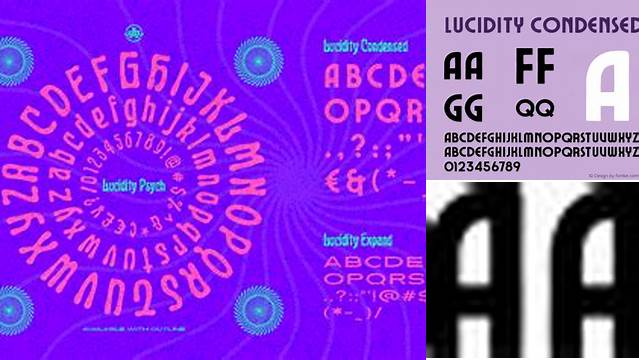
In the realm of typography, Ayr Lucidity Condensed Regular Font stands out as a versatile and elegant choice for designers and content creators alike. Its clean lines and condensed form make it ideal for various applications, from branding and marketing materials to website design and editorial layouts. If you're on the hunt for a font that combines readability with a touch of sophistication, you've likely stumbled upon the Ayr Lucidity Condensed Regular Font. This font has garnered attention for its sleek, modern design and its ability to convey a sense of clarity and professionalism. This article serves as your comprehensive guide to understanding, downloading, and utilizing this remarkable typeface.
When discussing typography, it's essential to grasp the significance of font choice in shaping the overall aesthetic and message of a design. Fonts are more than just characters; they are visual communicators that evoke emotions, set the tone, and influence readability. Ayr Lucidity Condensed Regular Font excels in striking a balance between style and functionality. Its condensed nature allows for efficient use of space, making it perfect for headlines, body text, and even smaller captions. The font's legibility is a key asset, ensuring that your content remains accessible and engaging to your audience. The design elements of this font family draw inspiration from modern sans-serif typefaces, incorporating subtle refinements that enhance its visual appeal. The clean strokes and balanced letterforms contribute to a sense of harmony, making it a versatile option for a wide array of design projects. Whether you're crafting a corporate report, designing a website, or creating a marketing campaign, Ayr Lucidity Condensed Regular Font can elevate your work with its sophisticated charm. One of the most attractive aspects of this font is its adaptability. It seamlessly integrates into various design contexts, complementing both minimalist and elaborate styles. Its neutrality allows it to pair well with other fonts, giving designers the freedom to experiment and create unique visual hierarchies. The font's condensed form also lends itself to contemporary layouts, where space optimization is crucial. In digital design, where screen real estate is limited, using a condensed font like Ayr Lucidity can make a significant difference in readability and user experience.
Why Choose Ayr Lucidity Condensed Regular Font?
Choosing the right font is crucial for any design project, and Ayr Lucidity Condensed Regular Font offers several compelling reasons to be your go-to typeface. From its aesthetic appeal to its practical applications, this font is a versatile asset for designers and content creators. When you are looking for a font that embodies modernity and clarity, Ayr Lucidity Condensed Regular Font delivers on both fronts. Its sleek lines and well-defined characters create a visual harmony that is pleasing to the eye, ensuring readability across various media. This font is not just about looks; it also brings a functional advantage to the table. The condensed nature of the font allows for more text to fit into a limited space, making it ideal for headlines, captions, and body text in designs where space efficiency is key. This is particularly beneficial in web design, where maximizing the use of screen real estate can significantly improve the user experience. One of the key reasons to opt for Ayr Lucidity Condensed Regular Font is its versatility. It seamlessly adapts to different design styles, whether you're aiming for a minimalist look or something more elaborate. This font pairs well with a variety of other typefaces, giving you the freedom to create unique and dynamic typography combinations. Its neutrality ensures that it doesn't overpower your design but rather complements and enhances it. For branding purposes, consistency is vital, and this font provides a professional and coherent look across all your materials. Whether it's for your website, business cards, or marketing collateral, Ayr Lucidity Condensed Regular Font can help establish a strong and recognizable brand identity. Its clean and sophisticated appearance conveys a sense of credibility and trustworthiness, which are essential for building a positive brand image. Furthermore, the legibility of Ayr Lucidity Condensed Regular Font is a significant advantage. The clear and distinct letterforms make it easy to read, even at smaller sizes. This is crucial for ensuring that your message is effectively communicated to your audience. Whether it's on a screen or in print, the font maintains its readability, preventing any potential strain or confusion for the reader. In conclusion, Ayr Lucidity Condensed Regular Font is an excellent choice for anyone seeking a modern, versatile, and legible typeface. Its aesthetic appeal, space-saving design, and adaptability make it a valuable asset for a wide range of projects. By choosing this font, you're investing in a typeface that not only looks good but also enhances the overall effectiveness of your communication. So, if you're looking to elevate your design work, consider giving Ayr Lucidity Condensed Regular Font a try. You might just find that it's the perfect fit for your next project.
Maximizing the Impact of Ayr Lucidity Condensed Regular Font in Your Designs
To truly make Ayr Lucidity Condensed Regular Font shine in your design projects, it's essential to understand its unique characteristics and how to leverage them effectively. This font, with its sleek and condensed form, brings a modern touch to any design, but the key is to know how to maximize its impact. From pairing it with the right fonts to using it in strategic layouts, several techniques can elevate your designs to the next level. Let's explore some strategies to help you make the most of Ayr Lucidity Condensed Regular Font. One of the most crucial aspects of effective typography is font pairing. Choosing the right companion font can enhance the readability and visual appeal of your design. When using Ayr Lucidity Condensed Regular Font, consider pairing it with a contrasting typeface that complements its modern aesthetic. A classic serif font, such as Times New Roman or Georgia, can create a sophisticated and balanced look when paired with Ayr Lucidity. The contrast between the sans-serif and serif fonts adds visual interest and helps to create a clear hierarchy in your design. Alternatively, you could pair Ayr Lucidity with another sans-serif font that has a different weight or style. For example, using a lighter sans-serif font for body text and Ayr Lucidity Condensed Regular Font for headlines can create a clean and modern feel. The key is to experiment with different combinations and see what works best for your specific project. In addition to font pairing, consider the layout of your design. The way you arrange text on the page can significantly impact its readability and visual appeal. When using Ayr Lucidity Condensed Regular Font, pay attention to the line height, letter spacing, and margins. Adjusting these elements can help to improve the overall legibility of the text and create a more balanced and harmonious design. The font's condensed nature makes it ideal for headlines and titles, where space is often limited. However, it can also be used effectively in body text, provided that the line height and letter spacing are carefully adjusted. Experiment with different layouts and see how Ayr Lucidity performs in various contexts. Another way to maximize the impact of Ayr Lucidity Condensed Regular Font is to use it strategically in your branding materials. Consistency is key when it comes to branding, so choosing a font that aligns with your brand's personality and values is crucial. The font's clean and modern design makes it a good choice for brands that want to convey a sense of professionalism, sophistication, and innovation. Use Ayr Lucidity consistently across all your branding materials, from your logo and website to your business cards and marketing collateral. This will help to create a strong and recognizable brand identity that resonates with your target audience. Furthermore, think about the colors you use in your design. Color can play a significant role in how a font is perceived. Dark colors, such as black or navy blue, can create a strong and authoritative look when paired with Ayr Lucidity Condensed Regular Font. Lighter colors, such as white or light gray, can create a more modern and minimalist feel. Experiment with different color combinations and see how they affect the overall mood of your design. Ultimately, maximizing the impact of Ayr Lucidity Condensed Regular Font comes down to understanding its strengths and using it strategically. By considering font pairing, layout, branding, and color, you can create designs that are both visually appealing and highly effective. So, go ahead and unleash your creativity with Ayr Lucidity, and watch your designs shine. Happy creating, guys!
Conclusion: Embracing the Versatility of Ayr Lucidity Condensed Regular Font
In conclusion, Ayr Lucidity Condensed Regular Font stands as a testament to the power of typography in shaping design aesthetics. Its blend of modernity, clarity, and versatility makes it a valuable asset for designers and content creators across various fields. Understanding its nuances and how to effectively integrate it into your projects can significantly elevate the overall impact of your work. This font isn't just a typeface; it's a tool for communication, branding, and visual storytelling. Its condensed form and clean lines offer a unique balance between functionality and style, making it suitable for a wide range of applications. Whether you're designing a website, crafting marketing materials, or creating editorial layouts, Ayr Lucidity brings a touch of sophistication and professionalism to the table. From the beginning, we explored the essential aspects of Ayr Lucidity Condensed Regular Font, diving into its characteristics and the reasons why it's a compelling choice for various design needs. We discussed the importance of considering licensing and legitimacy when searching for free downloads, emphasizing the need to protect your projects and your computer from potential risks. By sticking to reputable sources and carefully reviewing licensing terms, you can ensure that you're using fonts safely and legally. We also covered the installation process for both Windows and Mac operating systems, providing a step-by-step guide to help you get Ayr Lucidity up and running in your design software. The ease of installation ensures that you can quickly incorporate this font into your workflow and start experimenting with its capabilities. Moreover, we delved into strategies for maximizing the impact of Ayr Lucidity Condensed Regular Font in your designs. From font pairing to layout considerations, we explored techniques for creating visually appealing and effective typography. The key takeaway is that Ayr Lucidity thrives when paired with complementary typefaces and when used strategically in your design layouts. It's a font that adapts well to different styles, allowing you to express your creativity and achieve your desired aesthetic. Whether you're aiming for a minimalist look or something more elaborate, Ayr Lucidity can be a versatile tool in your arsenal. In essence, embracing Ayr Lucidity Condensed Regular Font means embracing a typeface that enhances your designs with its unique charm. Its versatility allows it to shine in various contexts, making it a reliable choice for projects of all kinds. The font's impact extends beyond mere aesthetics; it contributes to the overall readability and clarity of your message, ensuring that your content resonates with your audience. As you continue your design journey, remember that typography is more than just selecting a font. It's about creating a visual language that speaks to your audience and conveys your message effectively. Ayr Lucidity Condensed Regular Font is a valuable tool in this endeavor, offering a blend of style and functionality that can elevate your designs to new heights. So, go ahead and explore the possibilities, experiment with different combinations, and let Ayr Lucidity be a part of your creative expression. Happy designing, everyone! Remember, the world of typography is vast and exciting, and with the right fonts and techniques, you can create designs that are both beautiful and impactful.